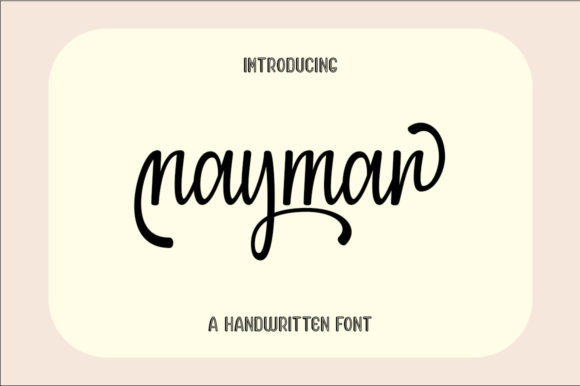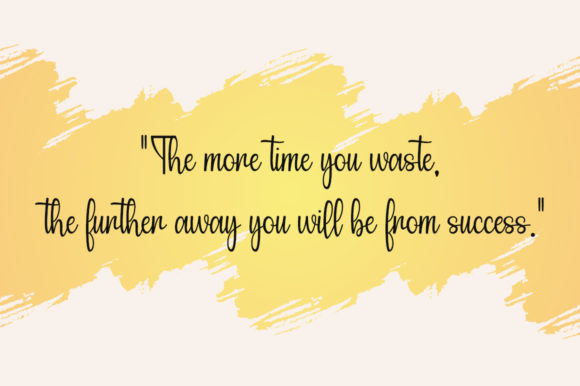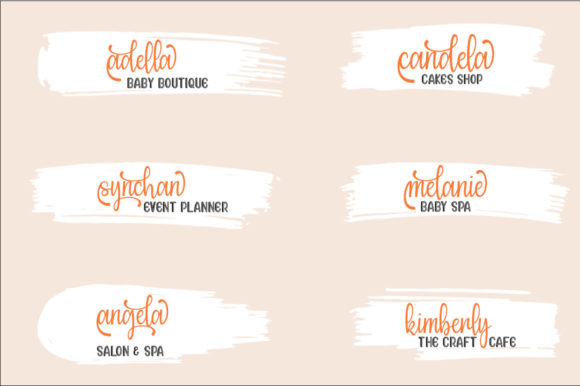
Naymar Font
About Naymar Font
Naymar is an enchanting handwritten font. This versatile script font has a wide spectrum of applications ranging from greeting cards to headlines. Naymar is PUA encoded which means you can access all of the glyphs and swashes with ease!